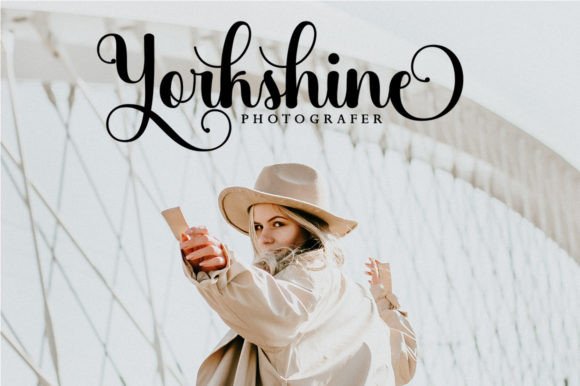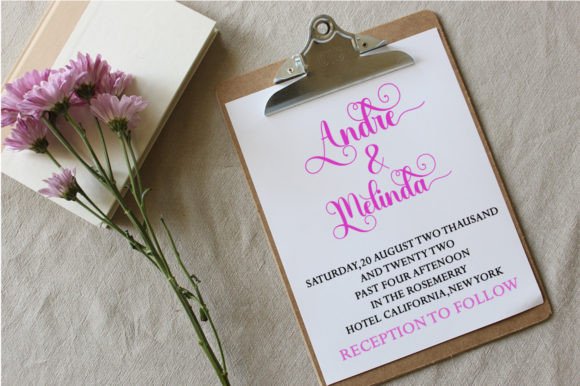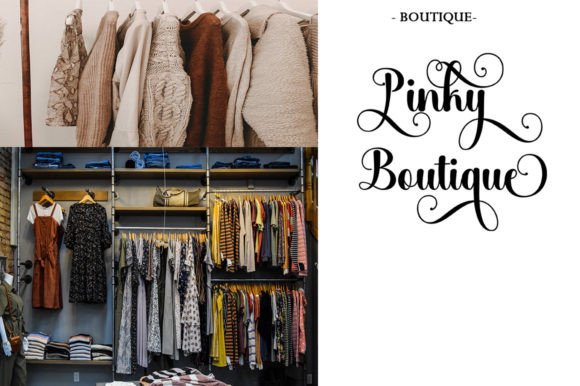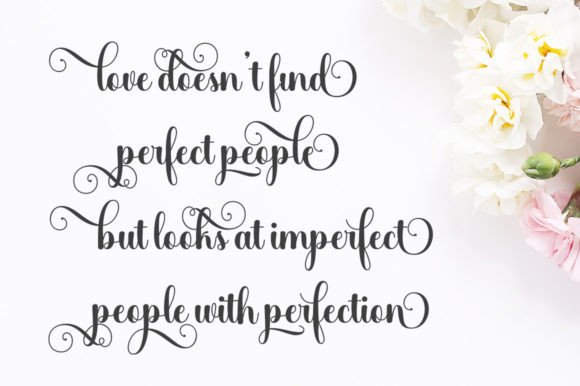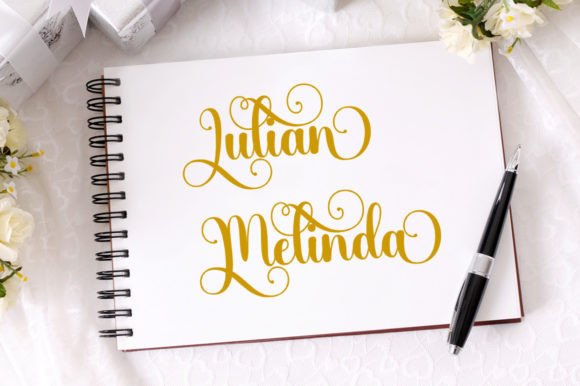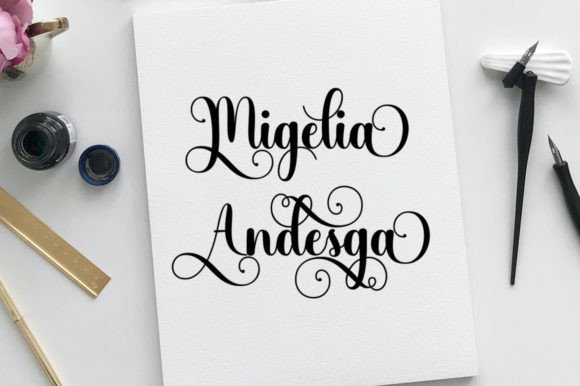
Gadyum Font
Gadyum is a versatile handwritten font crafted to meet all your design needs. This font is well-suited for a wide array of applications, making it an excellent choice for logos, product packaging, wedding invitations, branding, headlines, signage, labels, signatures, book covers, posters, quotes, and more.
The beauty of Gadyum lies in its handwritten style, adding a personal and organic touch to your text. Its adaptability to different design contexts makes it a valuable asset for creating a cohesive and stylish look across various projects.
The PUA encoding feature of Gadyum is noteworthy, providing easy access to a range of glyphs and swashes. This enhances the user experience, allowing for effortless customization and personalization of your designs. Gadyum becomes not just a font but a versatile tool that empowers your creativity.
Imagine Gadyum gracing your designs, whether on elegant wedding invitations, eye-catching logos, or impactful posters. The font becomes a key element that enhances the visual appeal, creating a harmonious and engaging aesthetic for your projects.
In summary, Gadyum is more than just a font; it’s a design asset that brings a handwritten charm to your creative endeavors. Embrace its versatility and PUA encoding confidently, and let Gadyum be the typeface that elevates your designs with ease and style.